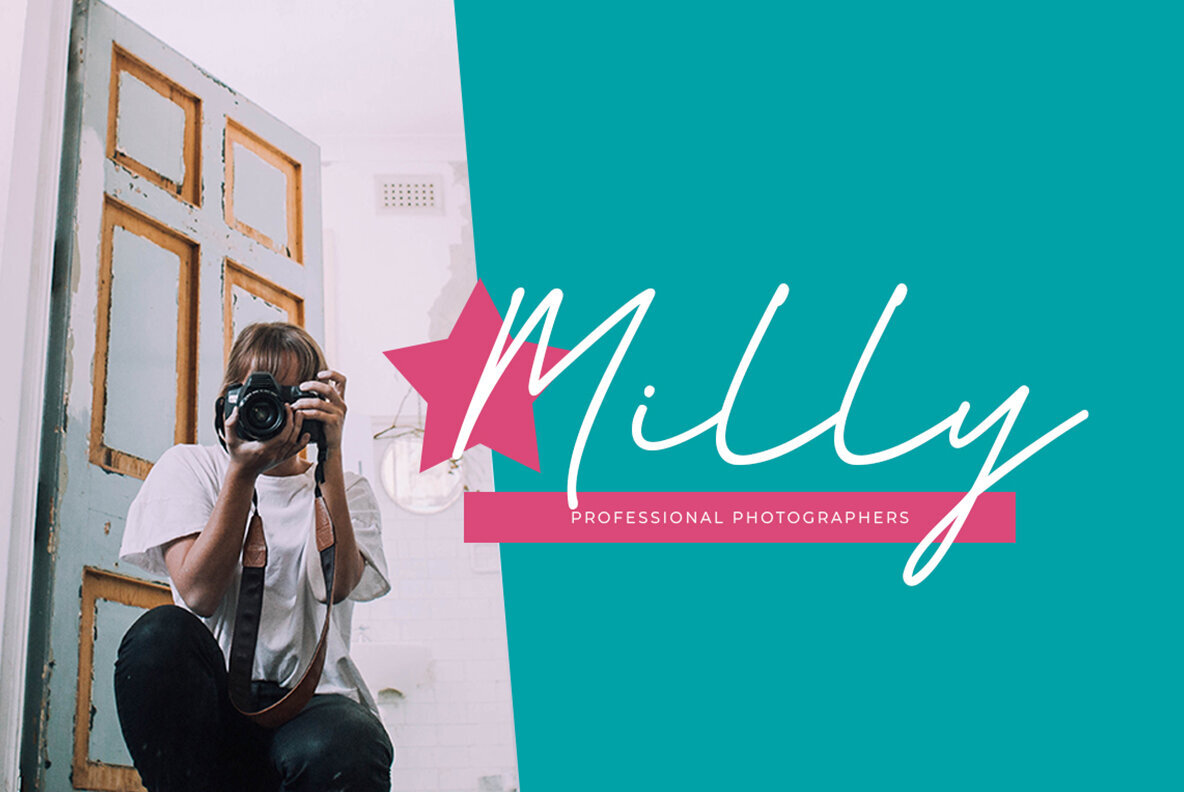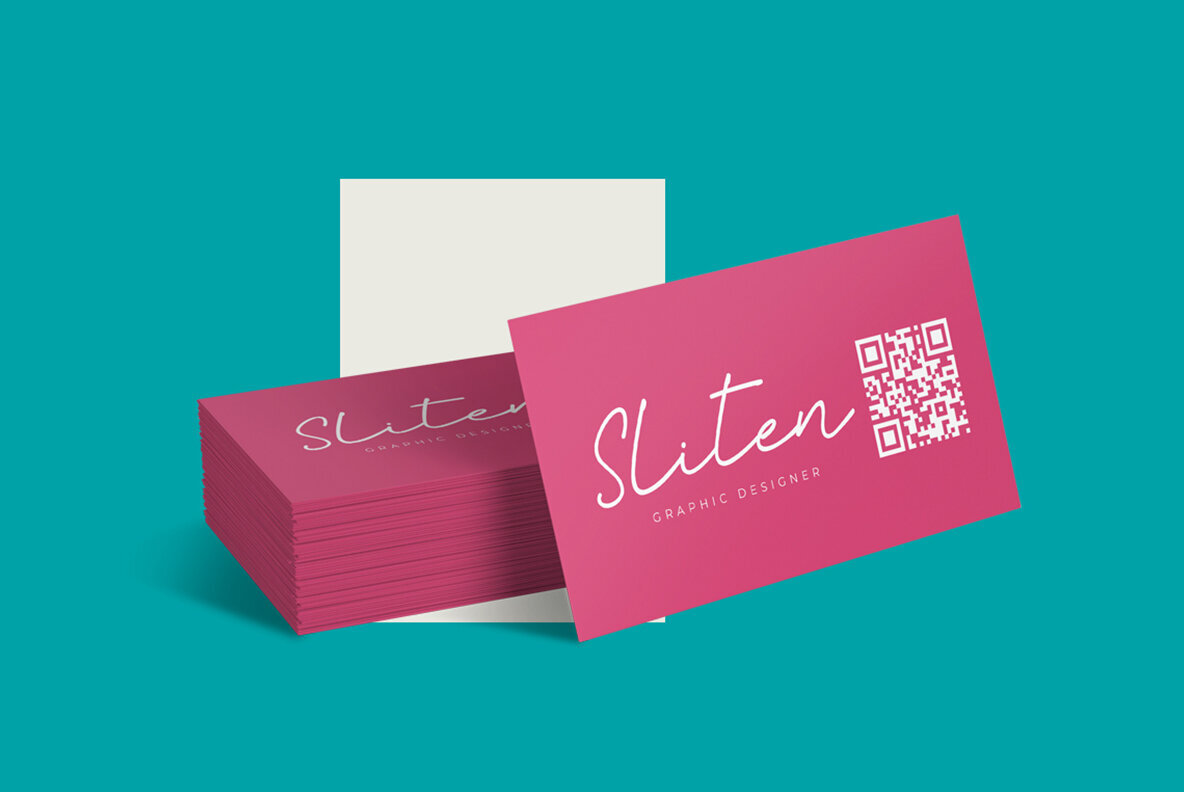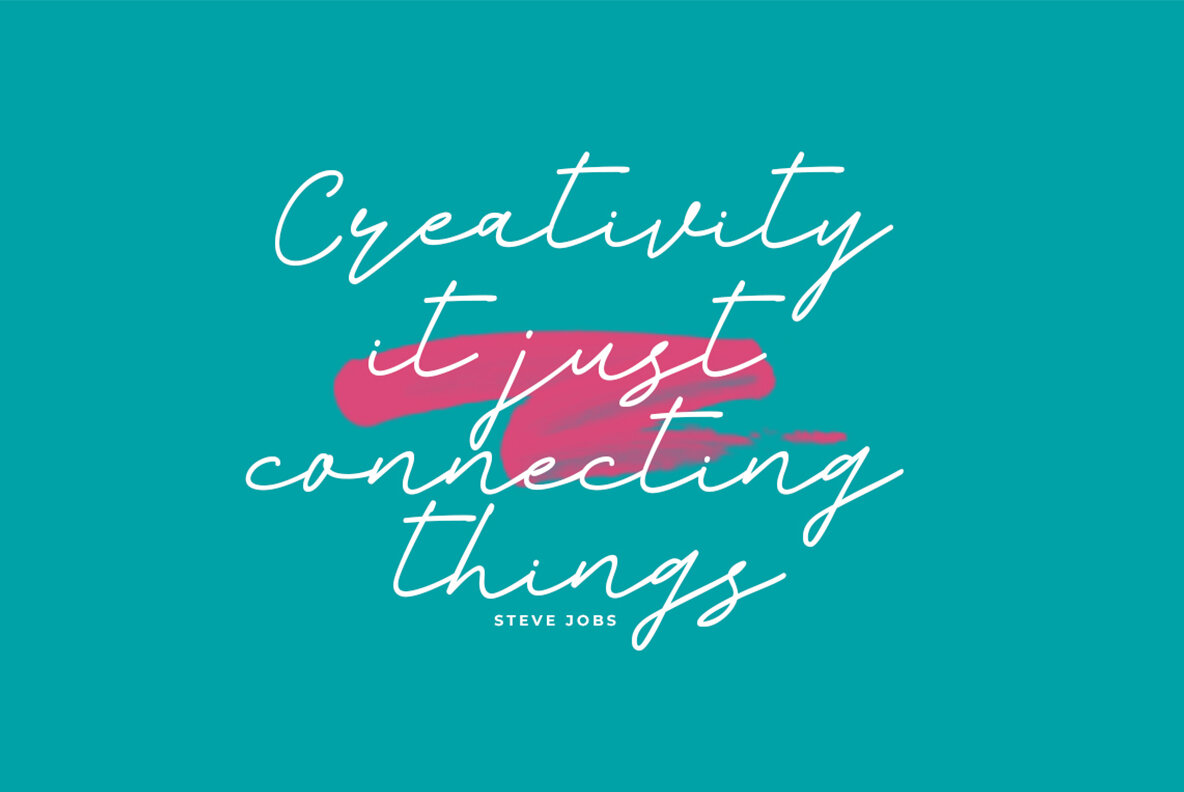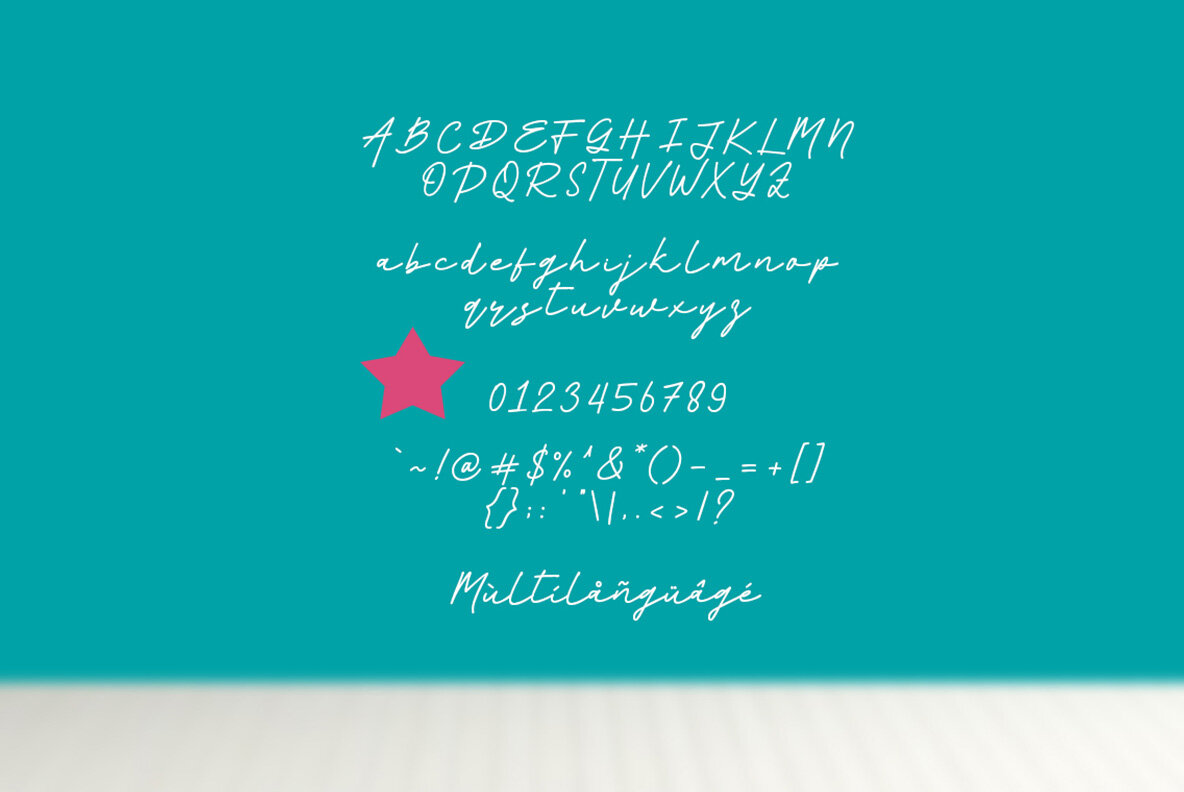
All Always Font
All Always
"All Always" is a fresh script font that offers an elegant and modern character set. It includes multi-lingual support, swashes, uppercase and lowercase letters, numerals, and punctuation. "All Always" is designed for those who enjoy creating with a heartfelt touch. Whether for design projects, branding, or personal use, this font offers both style and versatility.All Always: Elegant Script Font